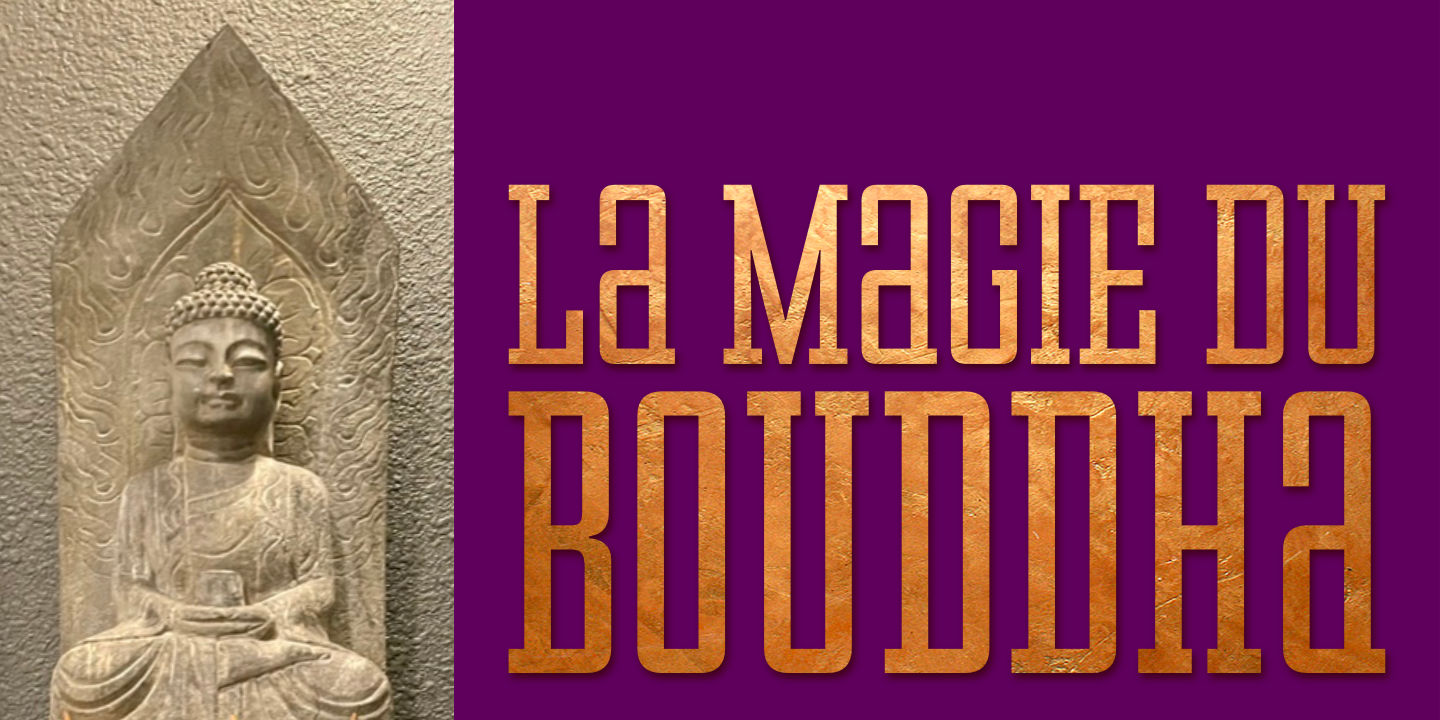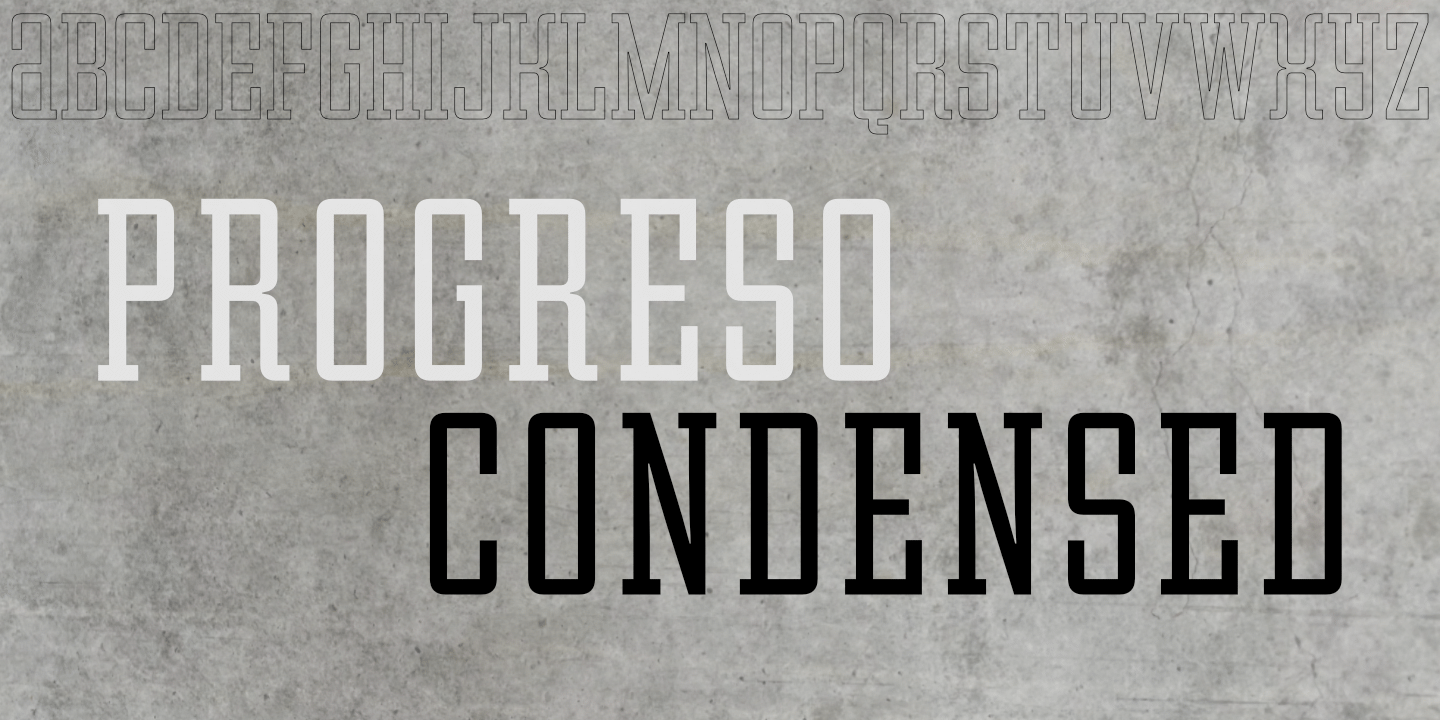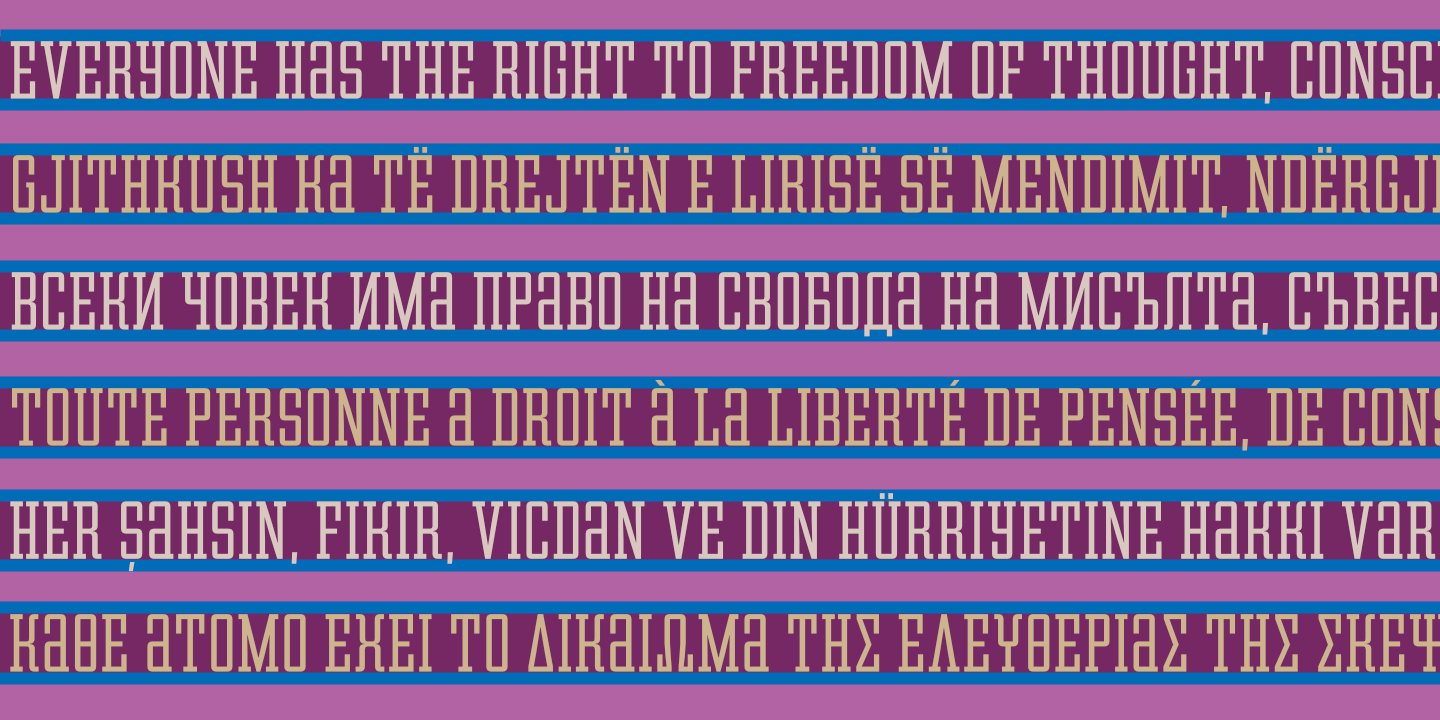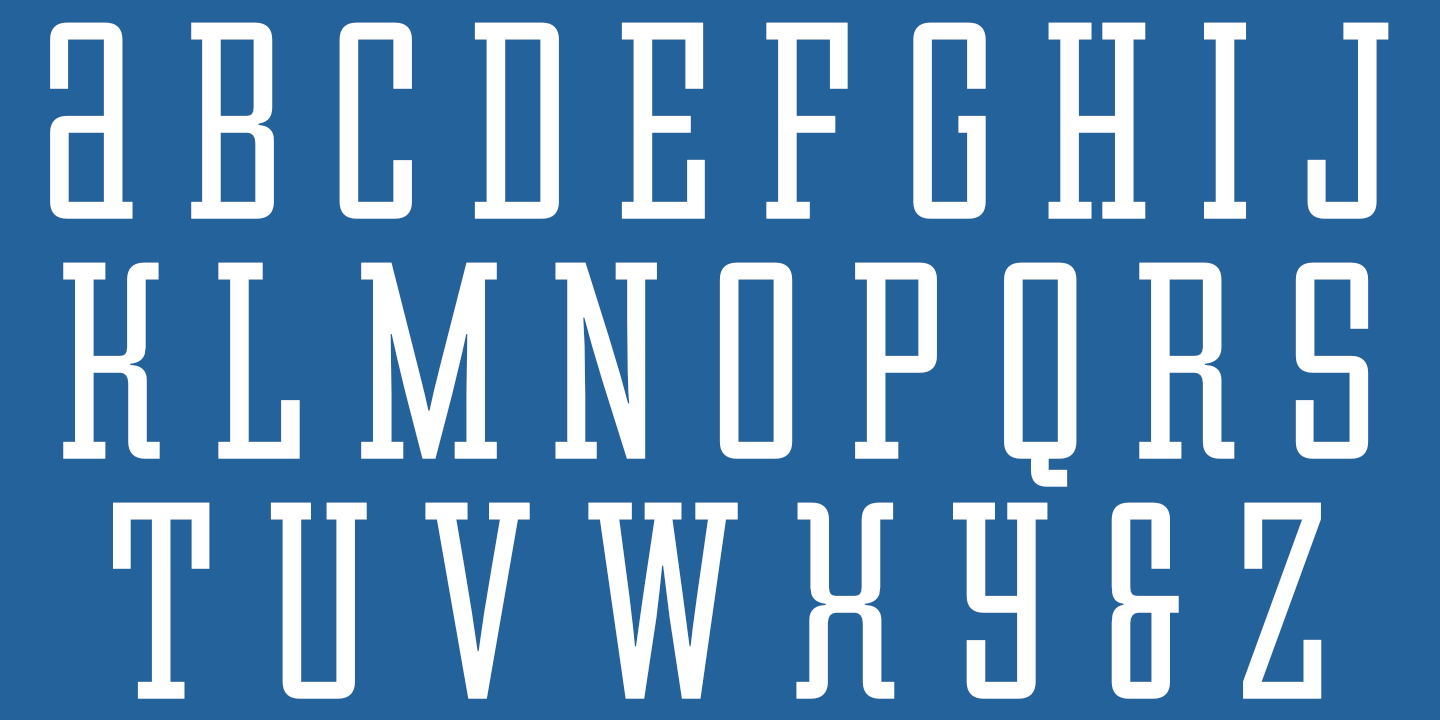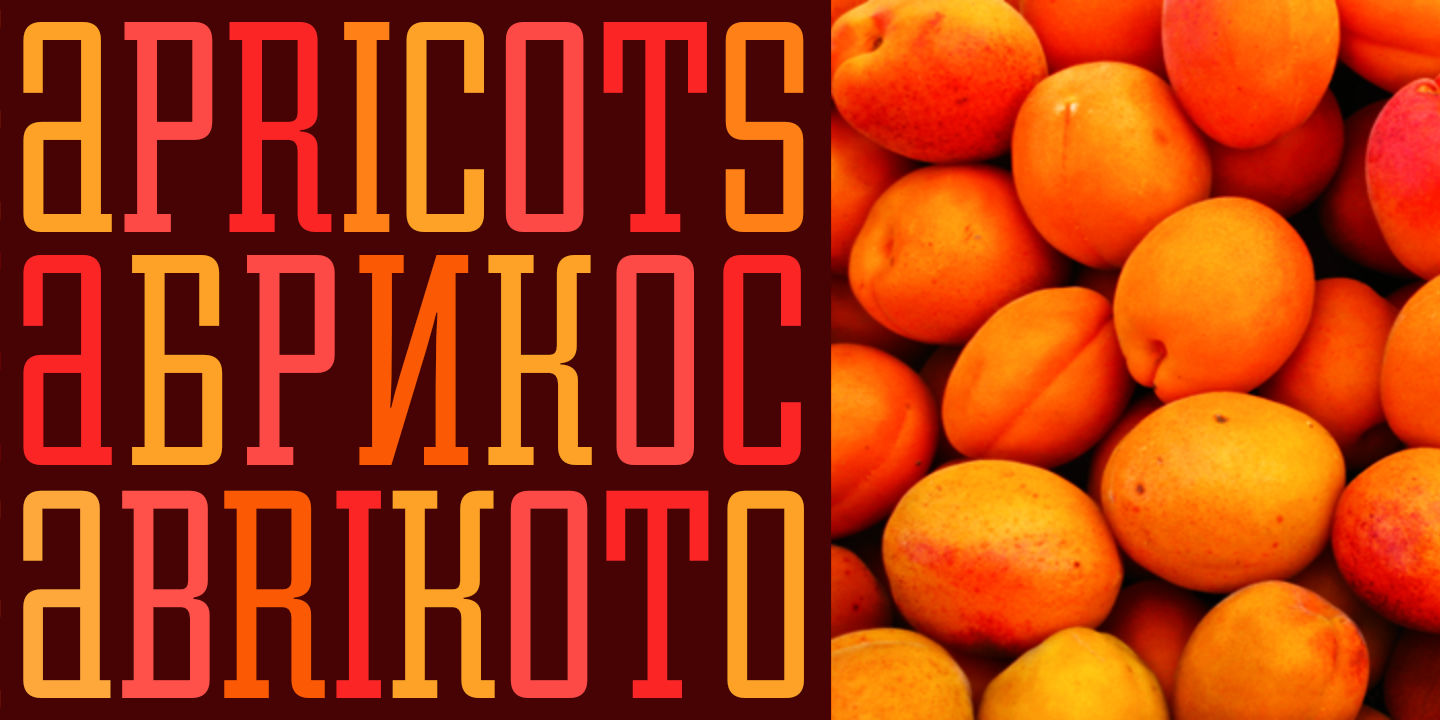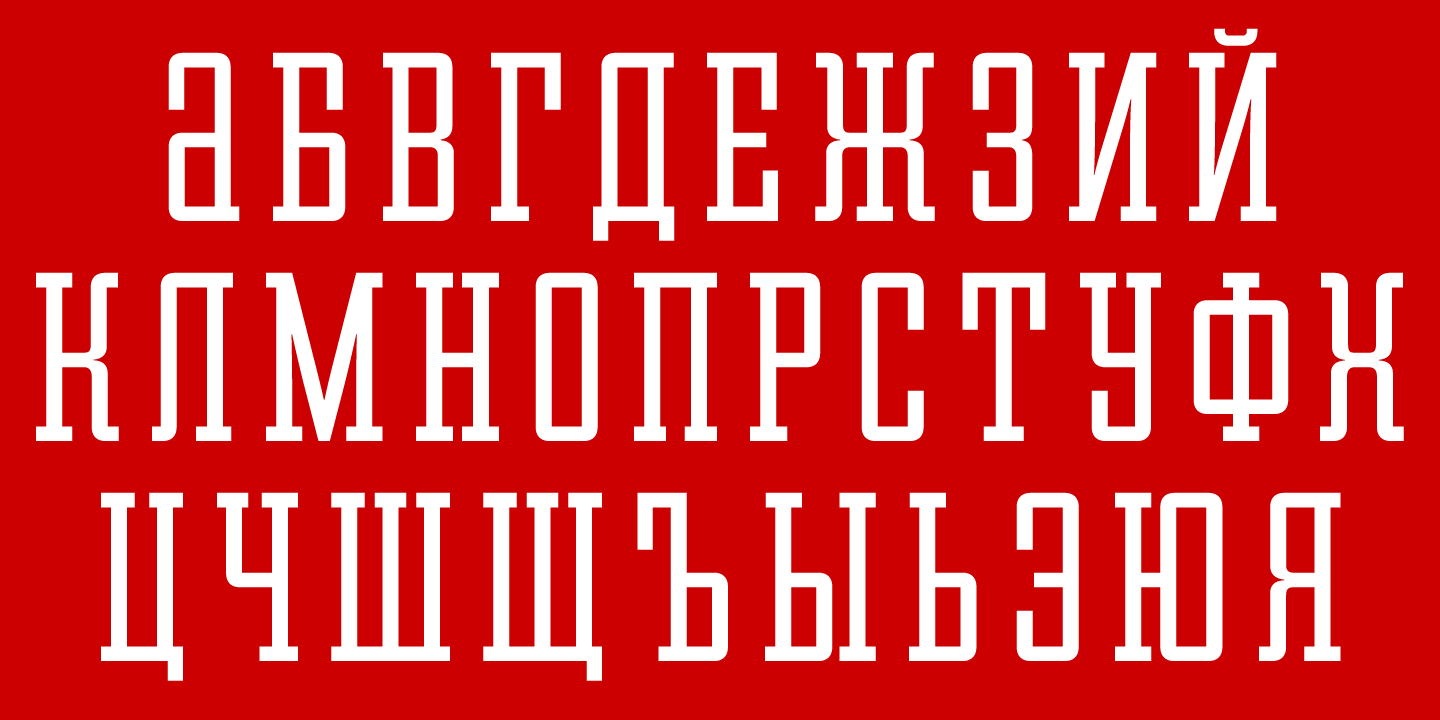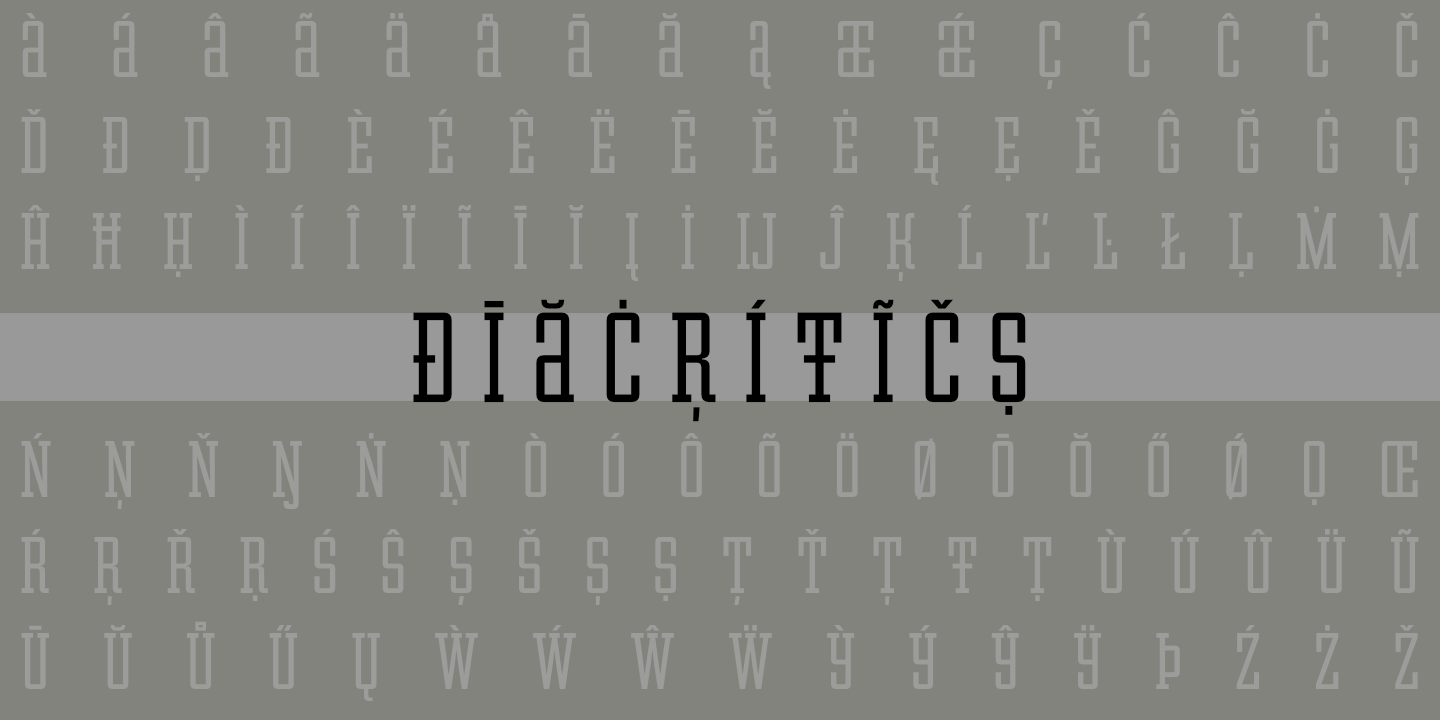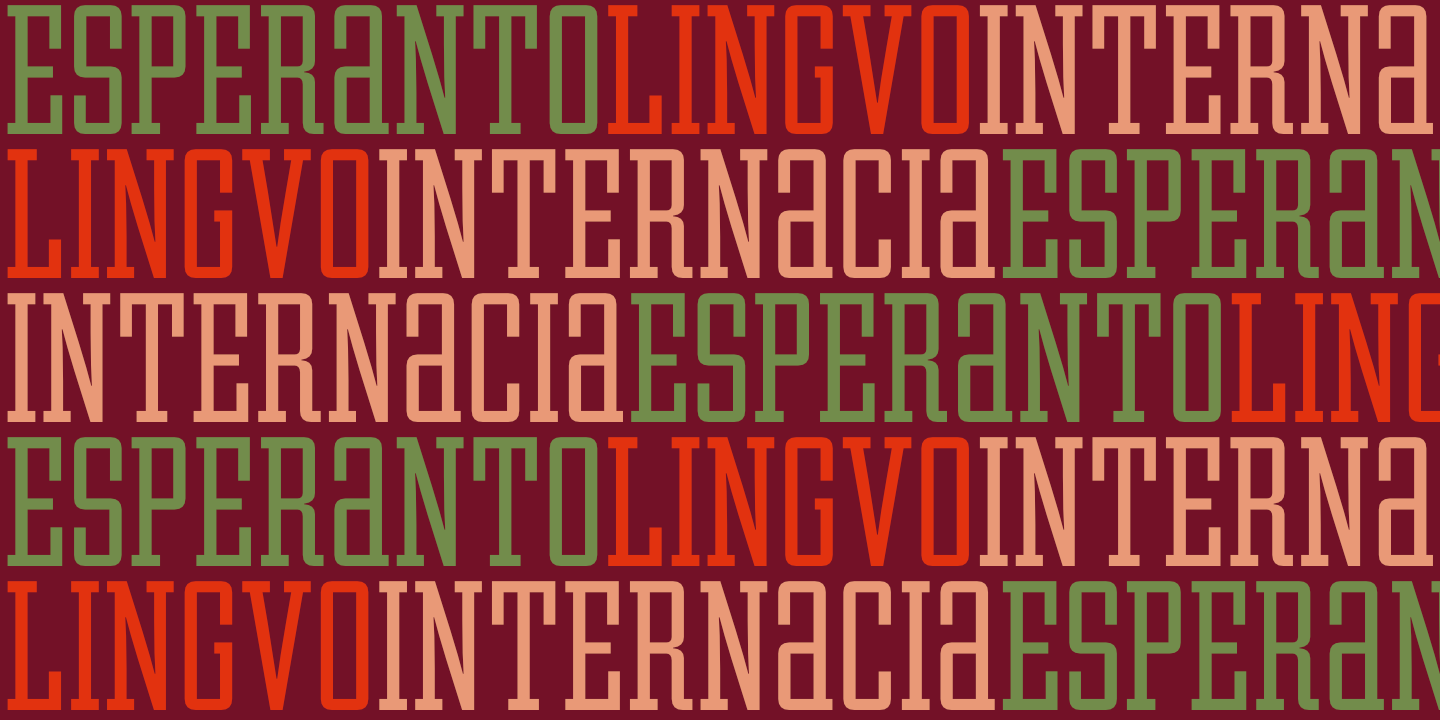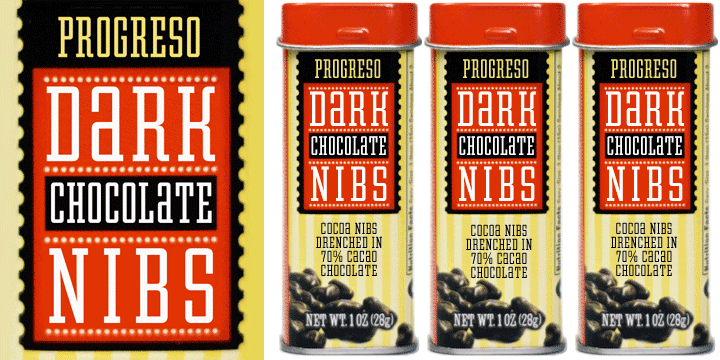
Progreso Condensed: Basic Latin alphabet. Supports most European languages. See Glyphs for details.
Progreso Condensed supports most languages that use the Cyrillic alphabet. See Glyphs for details.
Progreso Condensed supports modern (monotonic) Greek. See Glyphs for details.
Progreso Condensed supports most European languages.
The Condensed and Extra Condensed versions of Progreso work nicely together, as in the poster above.